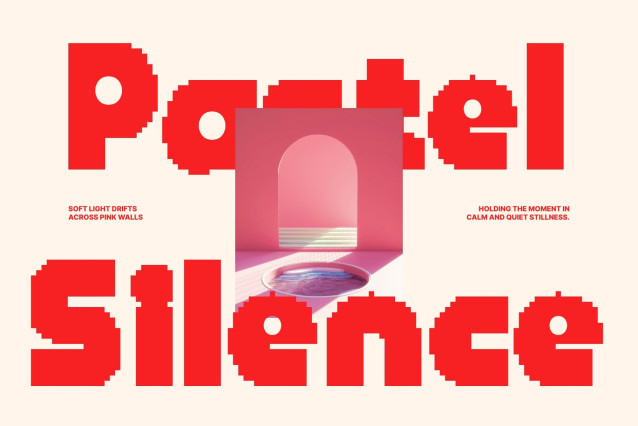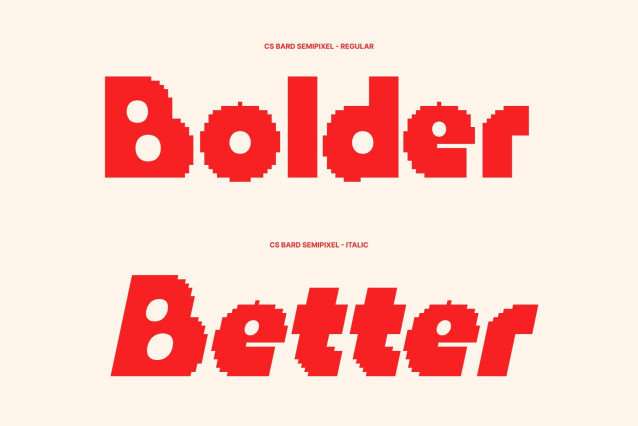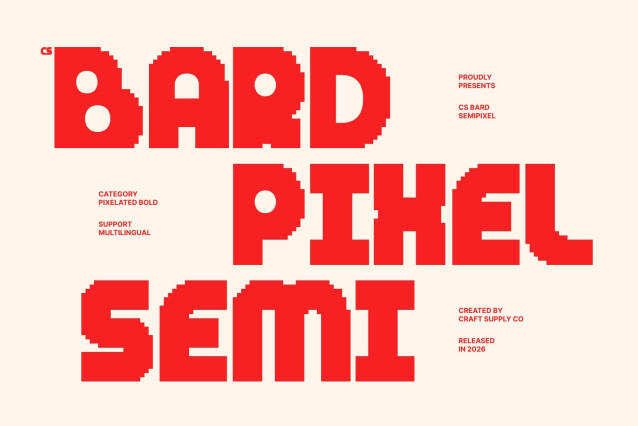
CS Bard Semipixel – Bold Chunky Display Font: Where Retro Pixel Energy Meets Smooth Modern Curves
Strong Chunky Forms with Playful Confidence
This is a bold chunky display font designed to radiate confidence, personality, and playful visual energy. Its thick geometric letterforms create a commanding presence filled with retro charm and modern boldness. Every character feels expressive and impactful, making the font perfect for eye-catching display compositions and energetic creative projects.
Semipixel Style with Smooth Digital Geometry
This font combines pixel-inspired square forms with modern curves and refined details. Unlike traditional rigid pixel fonts, its softened construction creates a smoother and more contemporary digital appearance while preserving the nostalgic spirit of classic pixel typography. The result is a font that feels retro, futuristic, and highly versatile at the same time.